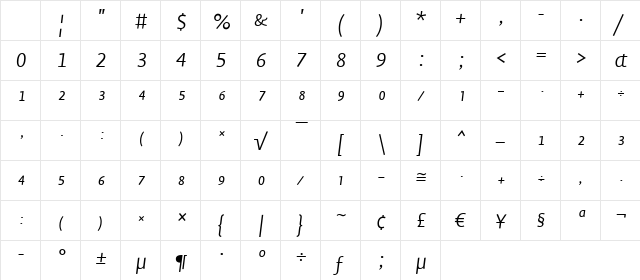
Complete ProfileNO Light Italic glyph index. Displaying only characters natively supported by ProfileNO Light Italic font.
ProfileNO is a composed and adaptable typeface that performs quietly and consistently across a wide range of design contexts. The slanted form adds forward momentum and visual energy. Its slender proportions lend an understated elegance to any composition.
Who designed the ProfileNO Light Italic font?
This font was published by by Martin Wenzel, published by FontShop International for the FontFont library. Profile is a trademark of FSI, Fonts and Software GmbH, http://www.fontfont.de. Check the technical specs section for copyright and designer details.